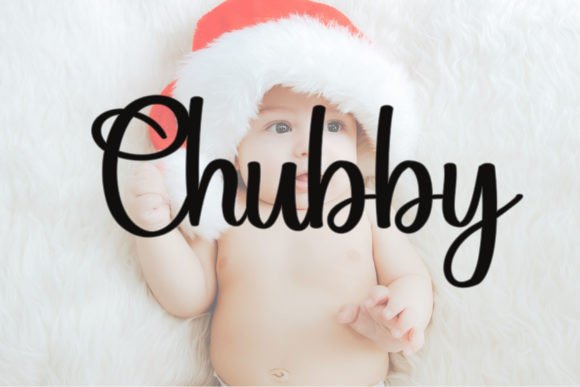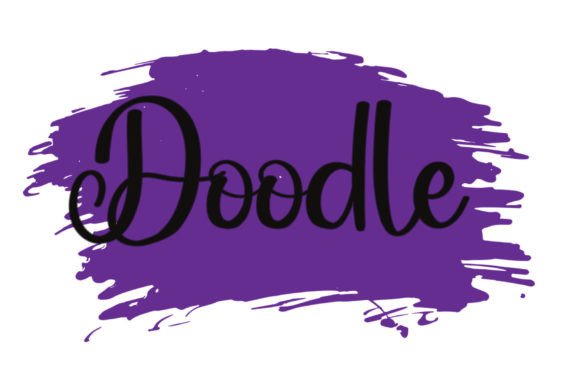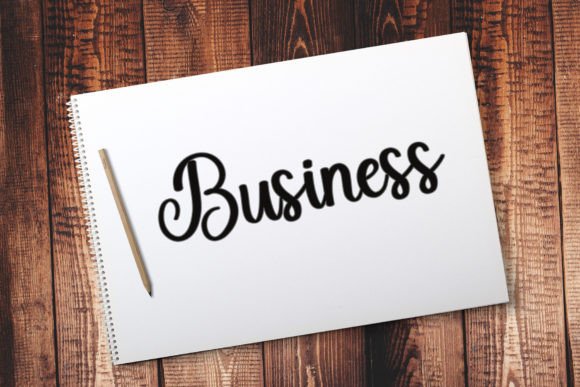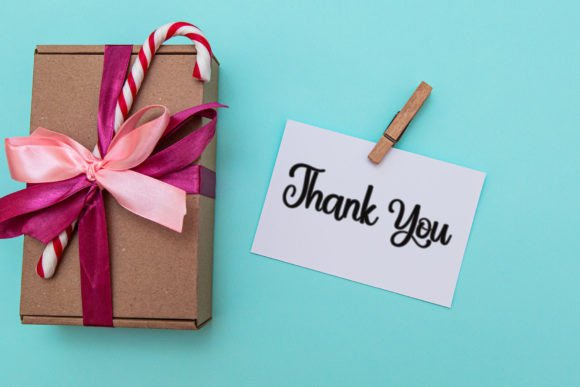
Baby Boy Font: Elevate Your Designs with a Touch of Elegance
In the world of typography, fonts play a crucial role in conveying the tone and personality of a design. For designers and crafters looking to add a touch of sophistication and elegance to their projects, the Baby Boy Font is an excellent choice. This trendy handwritten font boasts a contemporary atmosphere and impeccable form, inspired by timeless classic calligraphy.
The Inspiration Behind Baby Boy Font
Baby Boy Font draws inspiration from traditional calligraphy, yet presents a modern twist that sets it apart from more traditional fonts. Its creator aimed to capture the essence of classic elegance while infusing it with a fresh, contemporary vibe that appeals to modern design sensibilities. The result is a font that exudes sophistication and refinement, making it perfect for a wide range of design applications.
Key Features of Baby Boy Font
- Trendy and Handwritten: Baby Boy Font features a handwritten style that gives it a personal and unique touch. Its trendy appearance ensures that your designs stand out in a crowded digital landscape.
- Contemporary Atmosphere: Despite being inspired by classic calligraphy, Baby Boy Font has a distinctly modern feel. This blend of old and new makes it versatile and suitable for various design projects.
- Impeccable Form: The font’s impeccable form refers to its clean and precise lines, which contribute to its elegant appearance. Each letter is carefully crafted to ensure consistency and beauty.
- Elegance and Class: The primary goal of Baby Boy Font is to add a touch of elegance and class to any design. Whether you’re working on a logo, branding materials, or personal projects, this font can elevate your work to new heights.
Versatility of Baby Boy Font
One of the standout qualities of Baby Boy Font is its versatility. This font can be used for a wide range of projects, including:
- Branding and Logo Design: Create memorable logos and branding materials that exude elegance and sophistication.
- Stationery and Invitations: Add a touch of class to your stationery, invitations, and greeting cards.
- Web Design: Use Baby Boy Font to create visually appealing website headers, titles, and other design elements.
- Social Media Graphics: Elevate your social media presence with elegant and eye-catching graphics.
- Packaging Design: Stand out on store shelves with beautifully designed packaging that incorporates Baby Boy Font.
Tips for Using Baby Boy Font Effectively
To get the most out of Baby Boy Font, consider the following tips:
- Pair with Complementary Fonts: Combine Baby Boy Font with simpler fonts to create visual interest and hierarchy in your designs.
- Adjust Letter Spacing: Experiment with letter spacing to find the perfect balance for your design.
- Use it Sparingly: While Baby Boy Font is elegant, using it sparingly can make it more impactful. Consider using it for headings or key messages.
Baby Boy Font is a versatile and elegant handwritten font that can add a touch of sophistication to any design project. Its blend of classic inspiration and modern style makes it a valuable asset for designers and crafters looking to create visually stunning work. Whether you’re designing for digital platforms or print, Baby Boy Font is sure to elevate your designs and leave a lasting impression.